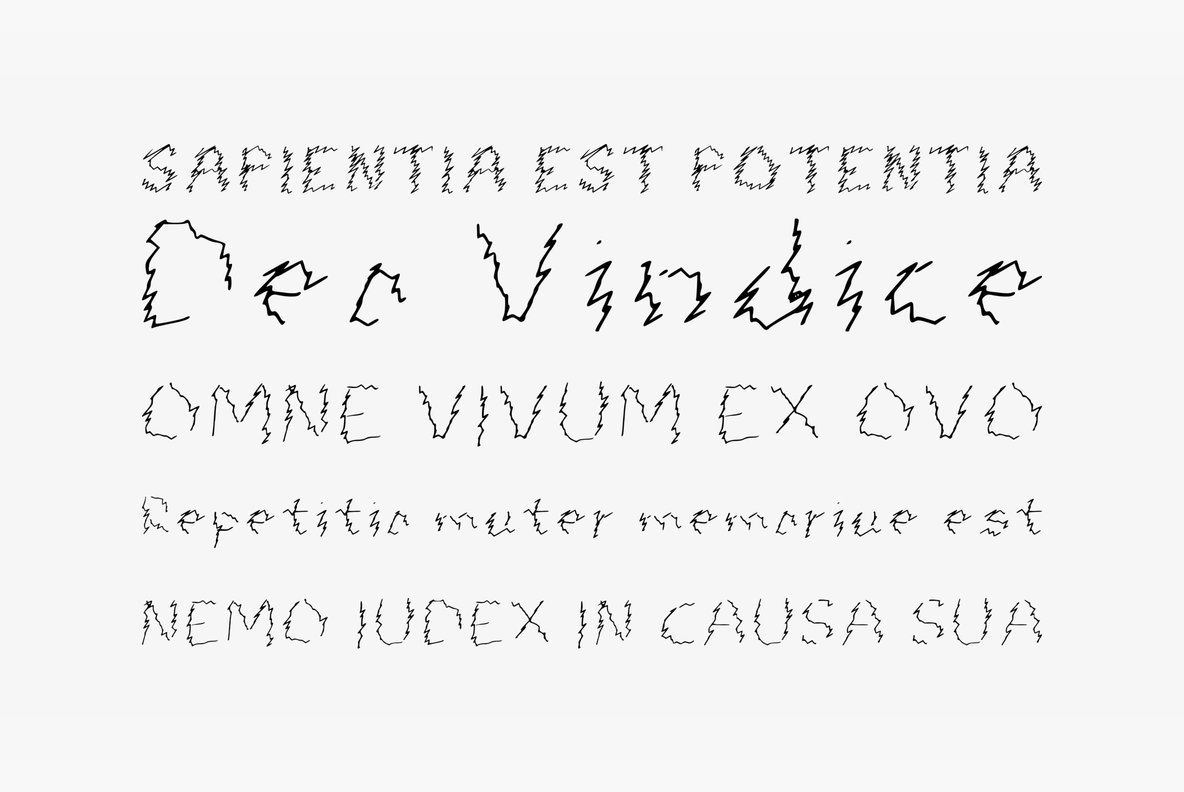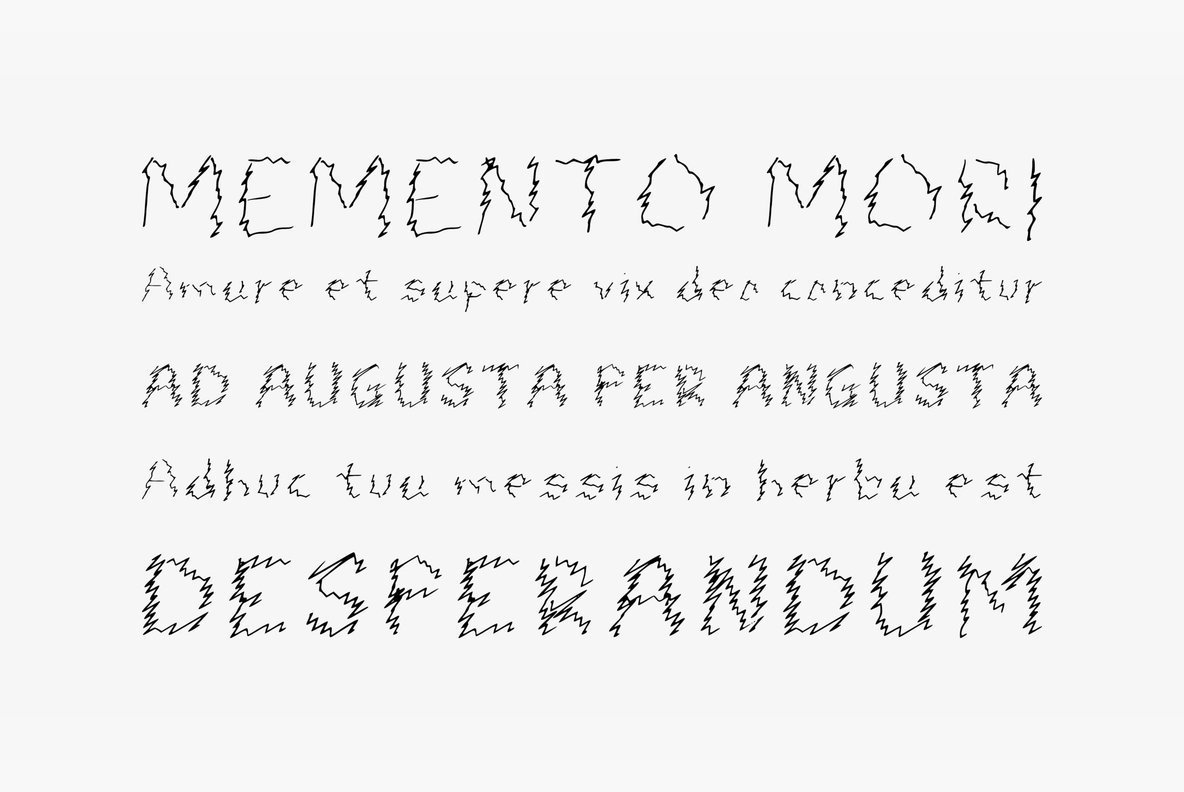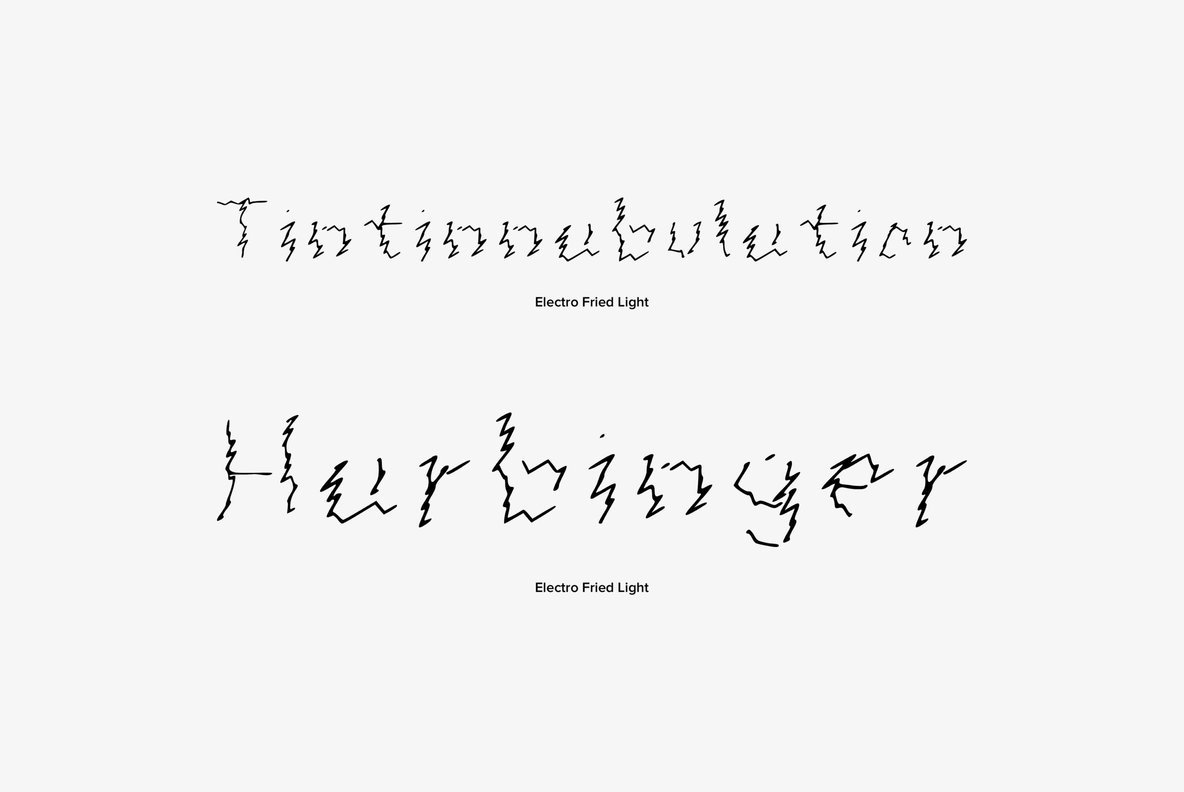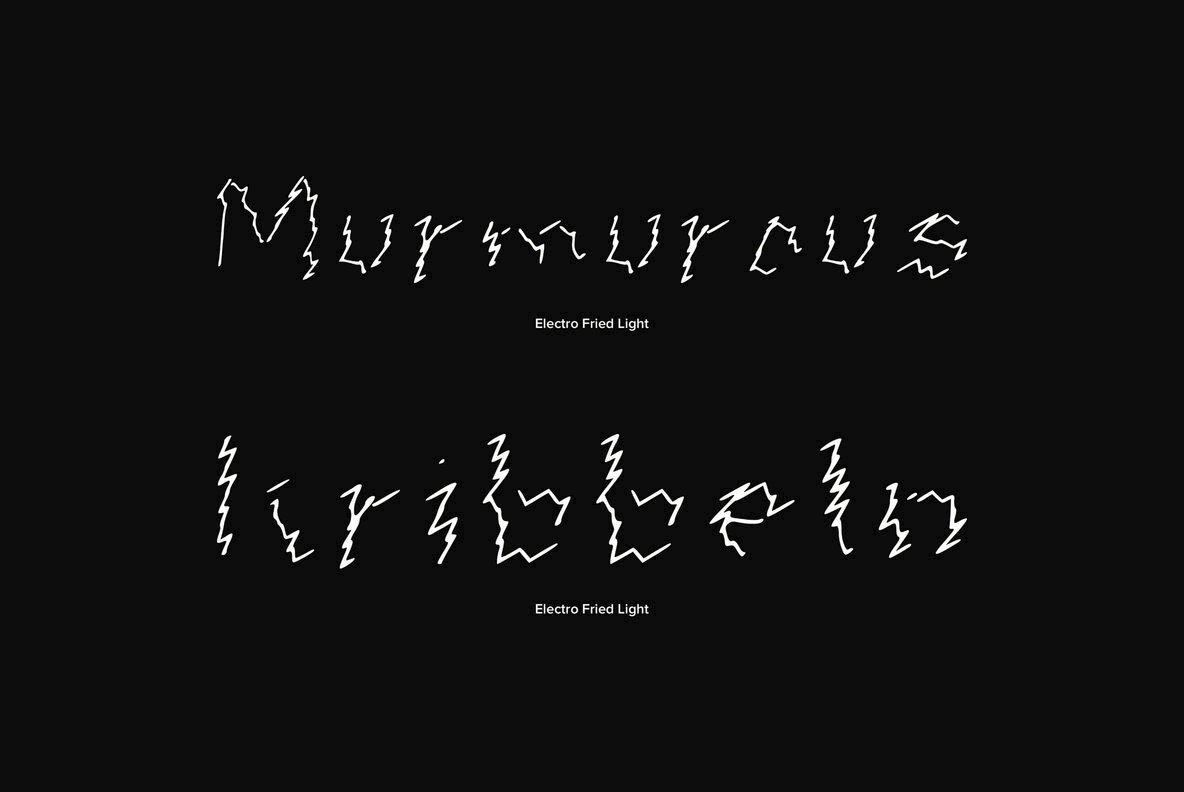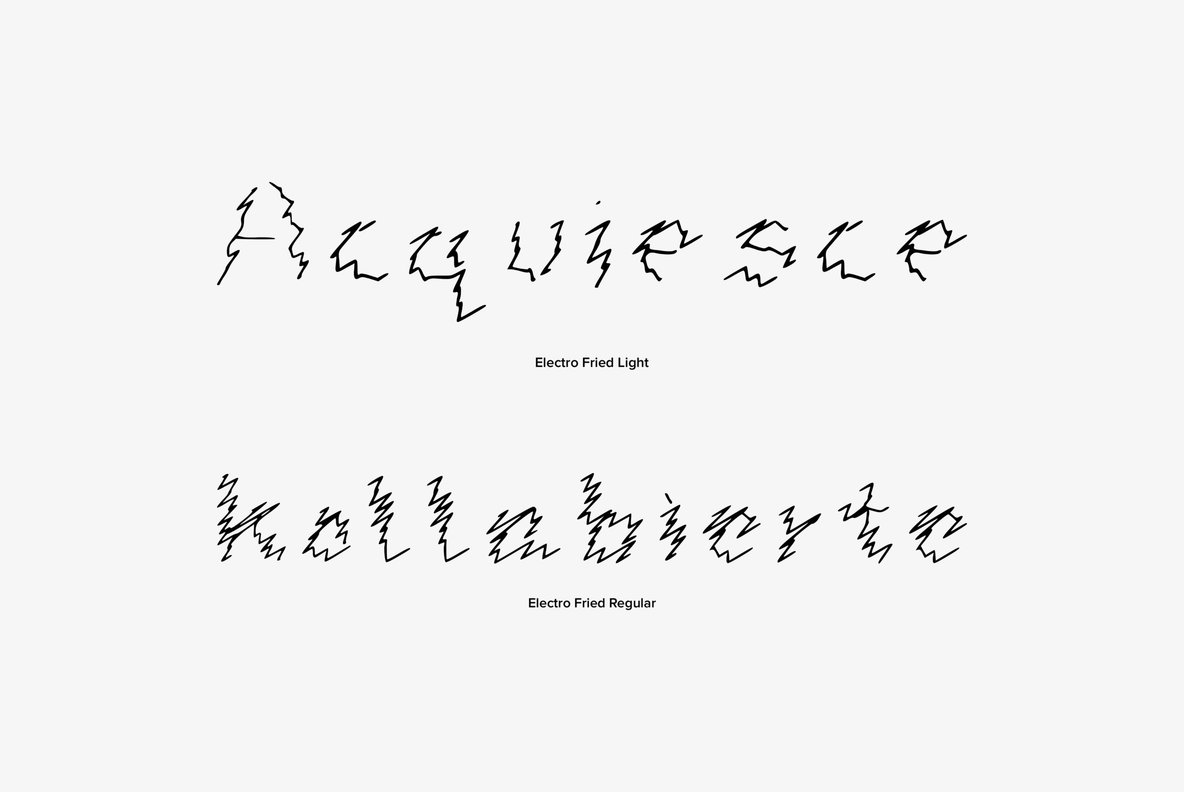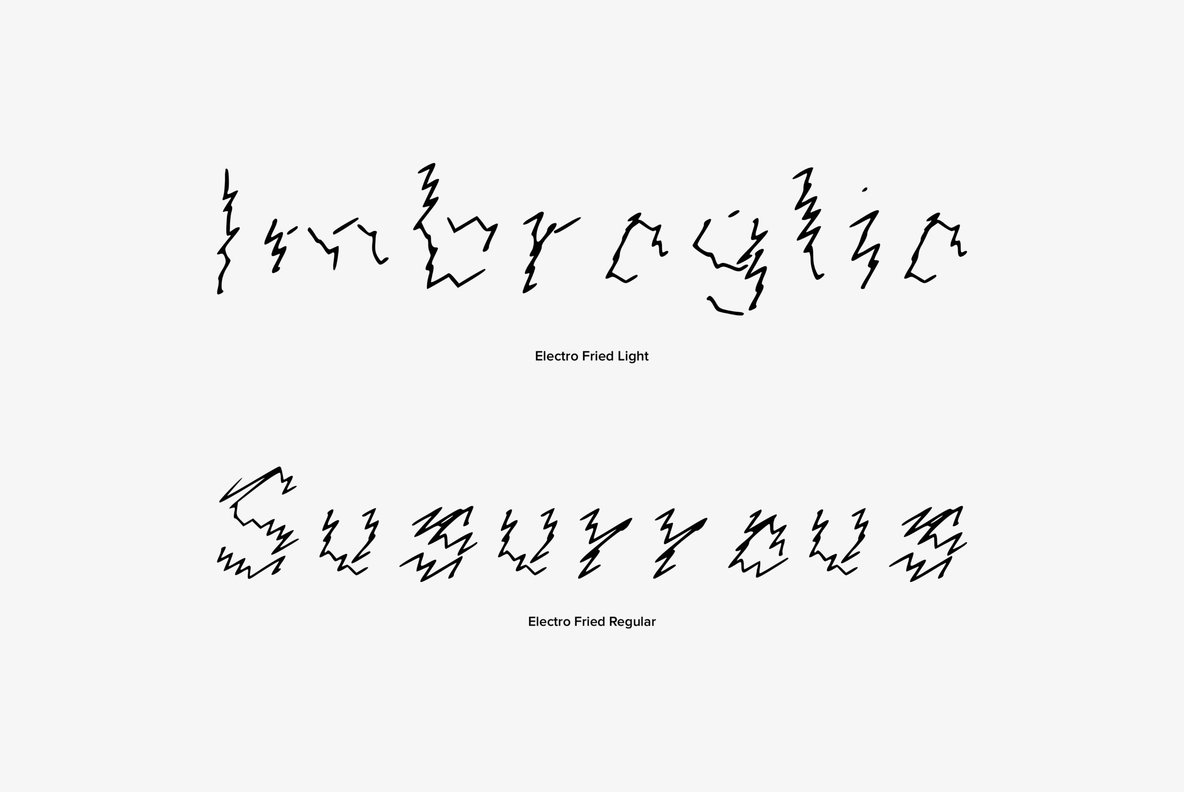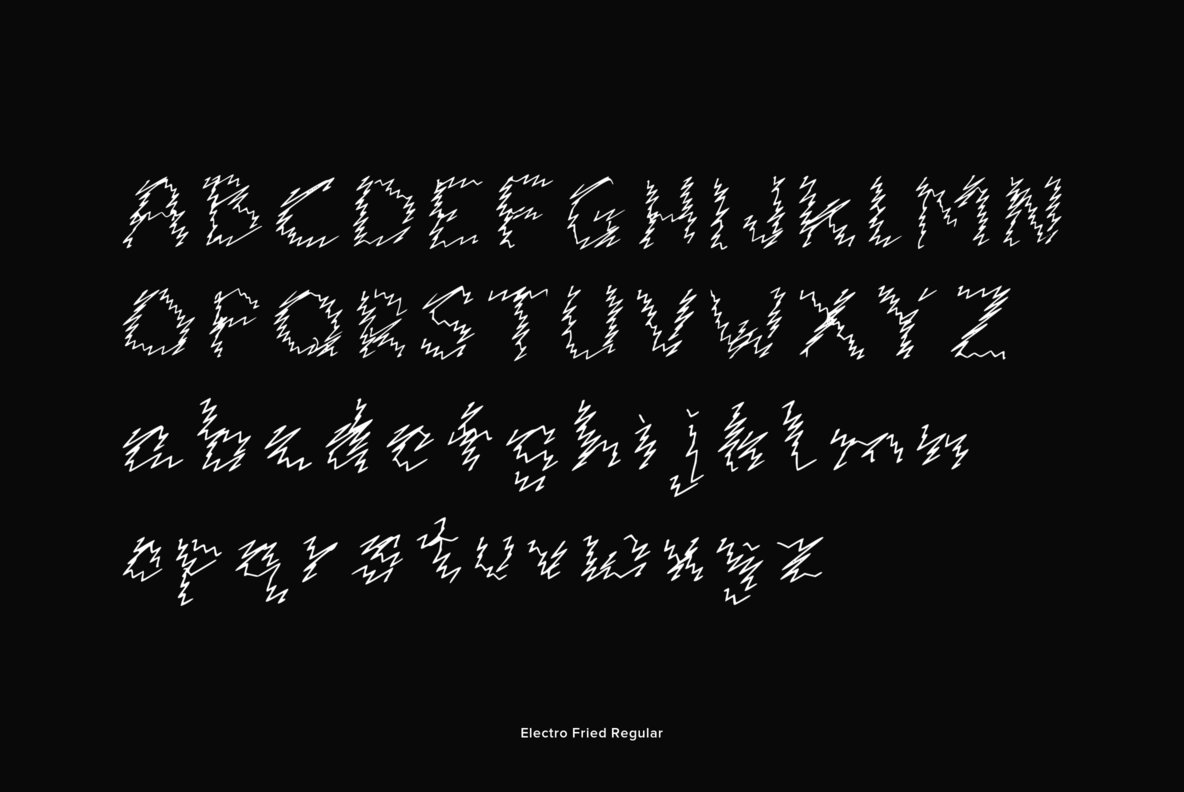
Electro Fried Font
Electro Fried Light
Electro Fried Regular
Shocked! Frazzled! Electrified! This type face has been through it all and here is the result. A font that looks like it's been playing out in a thunder storm, a playful, fun font that will give a zap to any design.